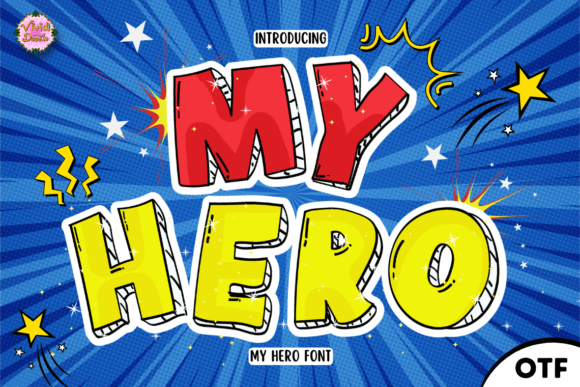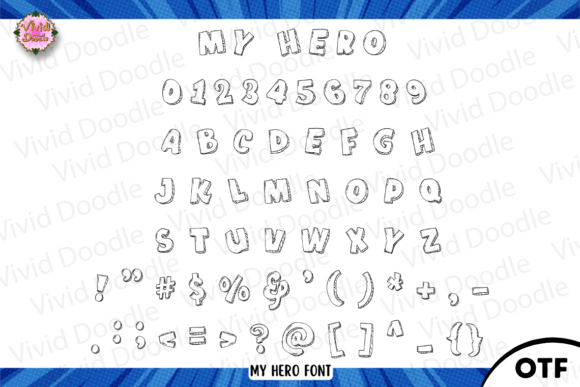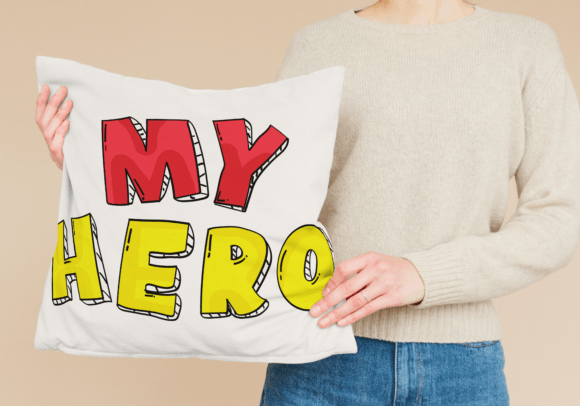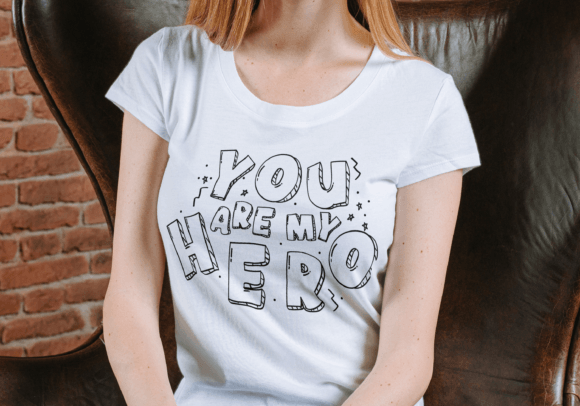
My Hero Font: A Bold Display Font for Comic & Cartoon Designs
About the My Hero Font
The wait is over! The incredible My Hero Font is now available for your design toolkit. Introducing My Hero font—a bold and dynamic typeface perfect for posters, comic strips, cartoon themes, school-related designs, festive creations, and more. Whether for school posters, comic book covers, or any design that celebrates bravery and excitement, this font seamlessly blends a powerful aesthetic with a touch of festive charm. Elevate your designs with the heroic allure of My Hero font, turning every project into a visually captivating and dynamically inspired experience.
My Hero Font’s bold, playful energy makes it ideal for headlines, logos, and short text blocks within posters or packaging. It excels in designs requiring immediate visual impact and a sense of fun. However, its strong character and relatively large x-height make it less suitable for body text or UI elements where readability over extended lengths is crucial.
Pairing My Hero Font with a clean sans-serif like Open Sans for body copy provides excellent contrast and readability. For a more playful feel, consider a rounded geometric sans-serif such as Poppins. A classic serif like Garamond could add a touch of sophistication if a more refined aesthetic is desired.
The overall personality is best described as energetic and bold, lending itself well to brands targeting younger audiences or projects needing a vibrant and memorable visual identity. It’s a strong choice for anything celebrating action, adventure, or youthful exuberance.
My Hero Font Usage Examples
My Hero Font Example